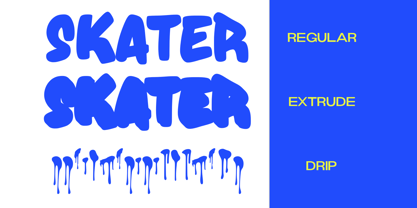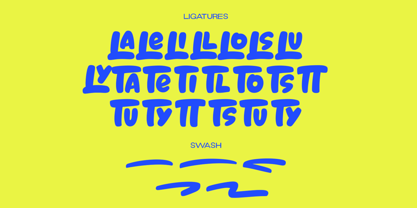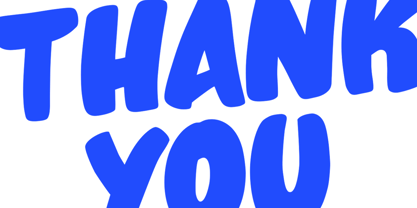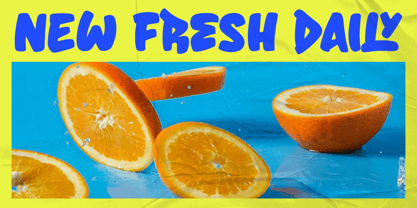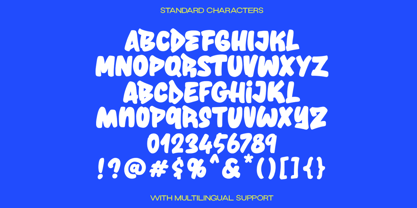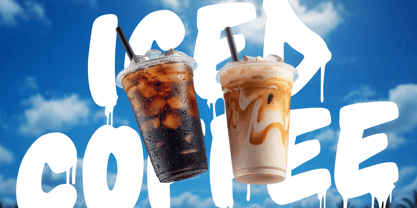
Big Drop
by Letterhend
The Big Drop Font Family was designed by Hendry Juanda and published by Letterhend. Big Drop contains 3 styles and family package options. More about this family
The Big Drop font splashes onto the scene with a loud, graffiti-inspired attitude—chunky letterforms, gooey drip details, and a playful street-art edge that instantly grabs attention. Its bold curves and melting shapes create a sense of motion and rebellion, making it perfect for loud headlines, youth-centric branding, creative posters, edgy merchandise designs, and anything that needs a punch of urban character. Features : Uppercase & lowercase Numbers and punctuation Alternates & Ligatures Multilingual Support PUA encoded
Designers: Hendry Juanda
Foundry: Letterhend